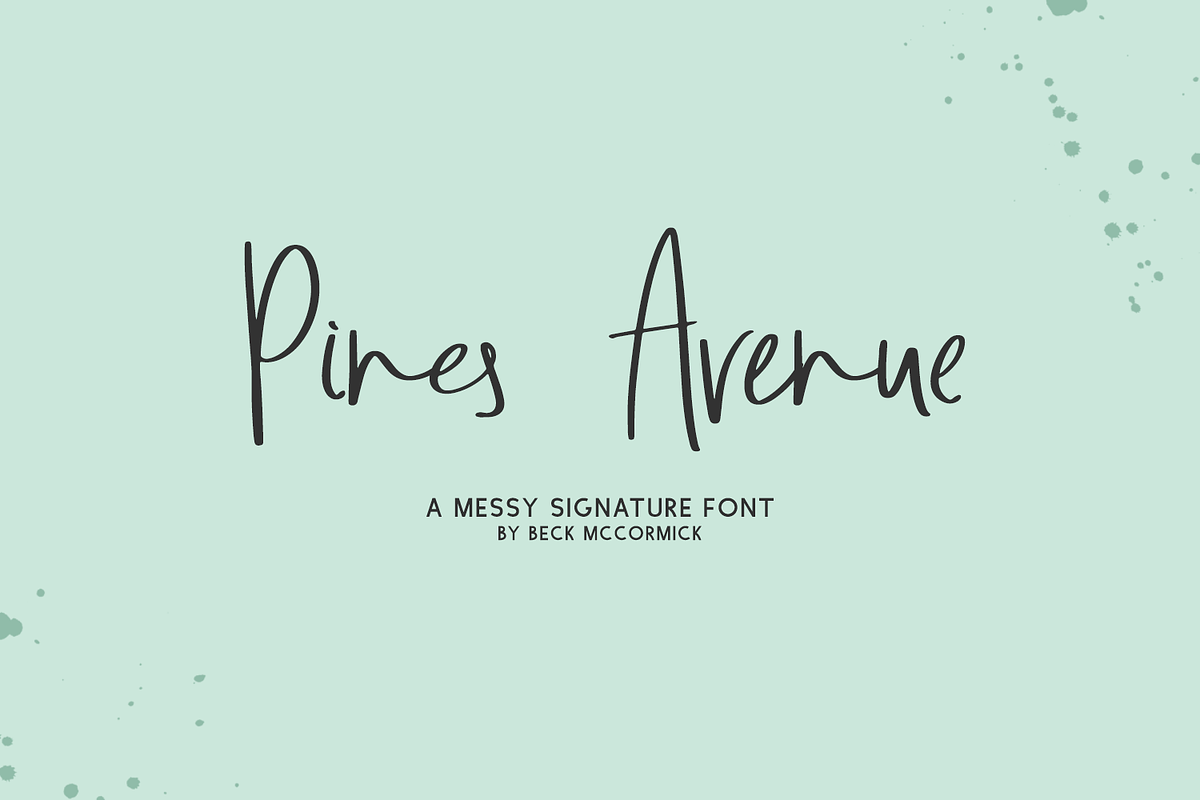
Pines Avenue Script Font Free Download is a charming and elegant typeface that brings sophistication and personality to your designs. With its flowing, cursive letterforms and smooth curves, this script font is perfect for creating logos, invitations, greeting cards, and branding materials that need a touch of elegance. Its stylish yet readable design makes it ideal for both creative and professional projects. Whether you're designing for a boutique, an event, or a personal project, Pines Avenue Script Font Free Download lets you explore its graceful style in personal projects before purchasing a commercial license. Add a refined, handwritten touch to your designs with this beautifully crafted script font.